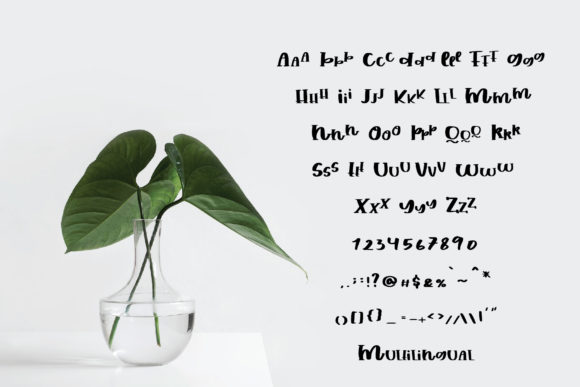
The Joy of Crazy Rich Font: Elevate Your Designs with a Cute and Quirky Display Font
I’ll never forget the moment I stumbled upon the Crazy Rich font. I was working on a project for a client who wanted a playful and eye-catching design, but I was struggling to find the right font to bring it all together. That’s when I discovered Crazy Rich, and it was love at first sight! ✨ This cute and quirky display font has since become a staple in my design toolkit, and I’m excited to share its awesomeness with you.
An Honest Review of Crazy Rich Font
- ✨ Its unique and playful design makes it perfect for adding a touch of personality to your projects
- ✅ The font is incredibly versatile and can be used for a wide range of designs, from posters and flyers to social media graphics and more
- 🎉 The font’s quirky style is sure to grab attention and make your designs stand out
While Crazy Rich Font is an amazing display font, there are a few things to keep in mind: 🤔
- ⚠️ It may not be the best choice for body text or smaller font sizes, as it can be a bit too ornate
- ⚠️ Some of the font’s more intricate details may not render well at very small sizes
- Experiment with different font sizes, colors, and styles to make the most of Crazy Rich’s unique design
- Take advantage of OpenType features like glyphs and stylistic alternates to add even more personality to your designs
- Use the font to add a touch of personality to your documents, such as in headings or titles
The Backstory of Crazy Rich Font
Crazy Rich Font was designed with one goal in mind: to bring a little joy and whimsy to the world of design. Its creator, a passionate typographer, wanted to craft a font that would make designers smile and inspire them to create something truly special. And with its unique blend of playfulness and elegance, Crazy Rich Font is sure to do just that.
Q: What type of projects is Crazy Rich Font best suited for?
A: Crazy Rich Font is perfect for a wide range of projects, from posters and flyers to social media graphics and more. Its playful design makes it ideal for any project that needs a touch of personality.
Q: Is Crazy Rich Font available in different weights or styles?
A: Yes! Crazy Rich Font comes in a range of weights and styles, from regular to bold and even italic. This makes it easy to add variety and interest to your designs.